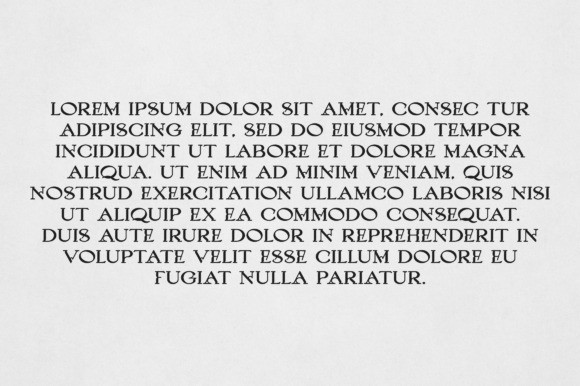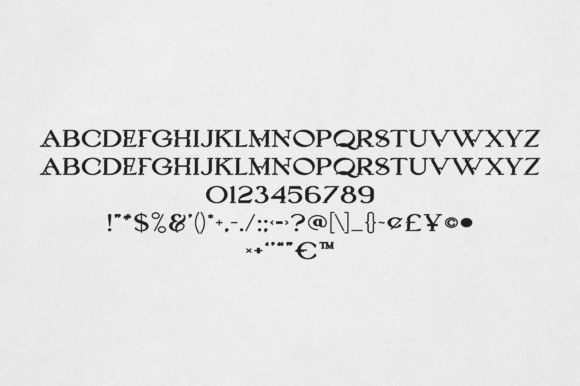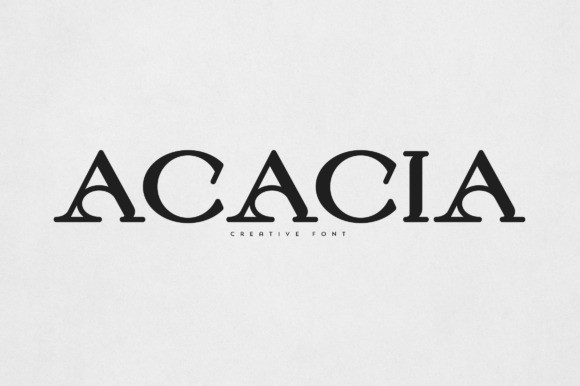
Acacia Font
Acacia Font is an elegant and versatile font that will make your typography truly unique! It will enchant every logo, branding, headline, or plain text!